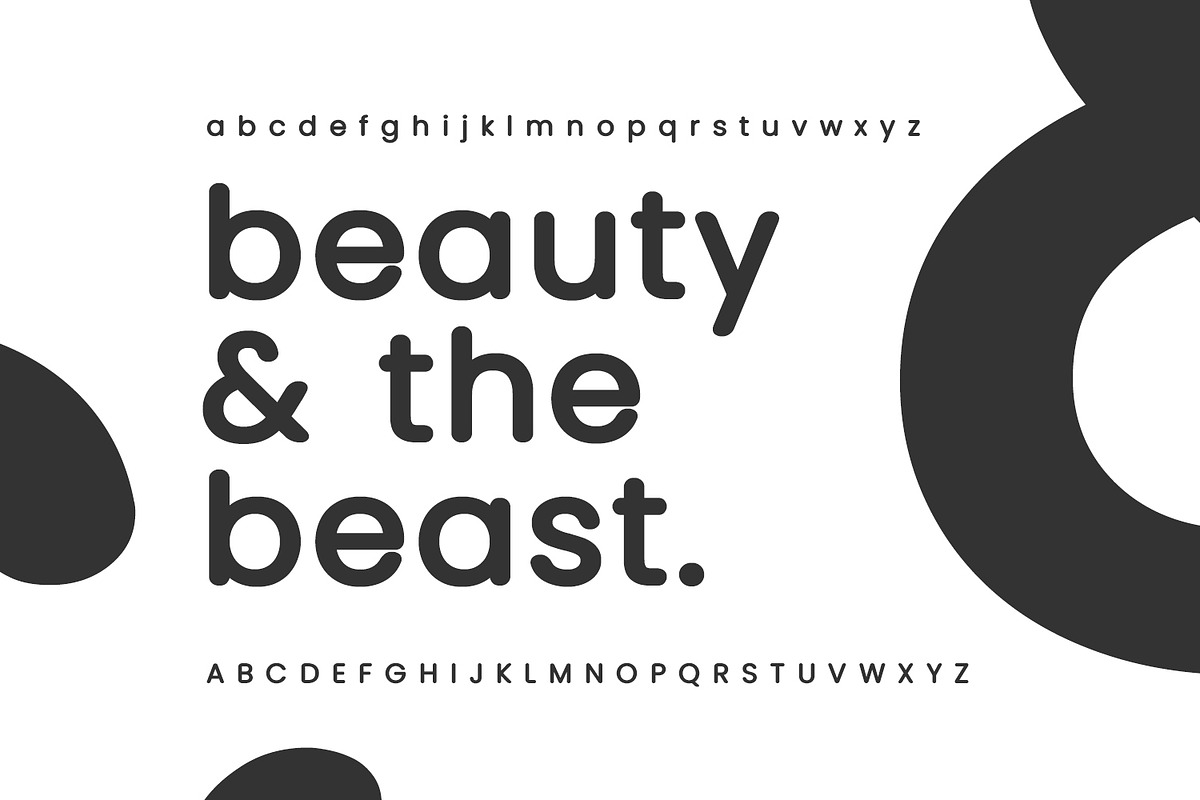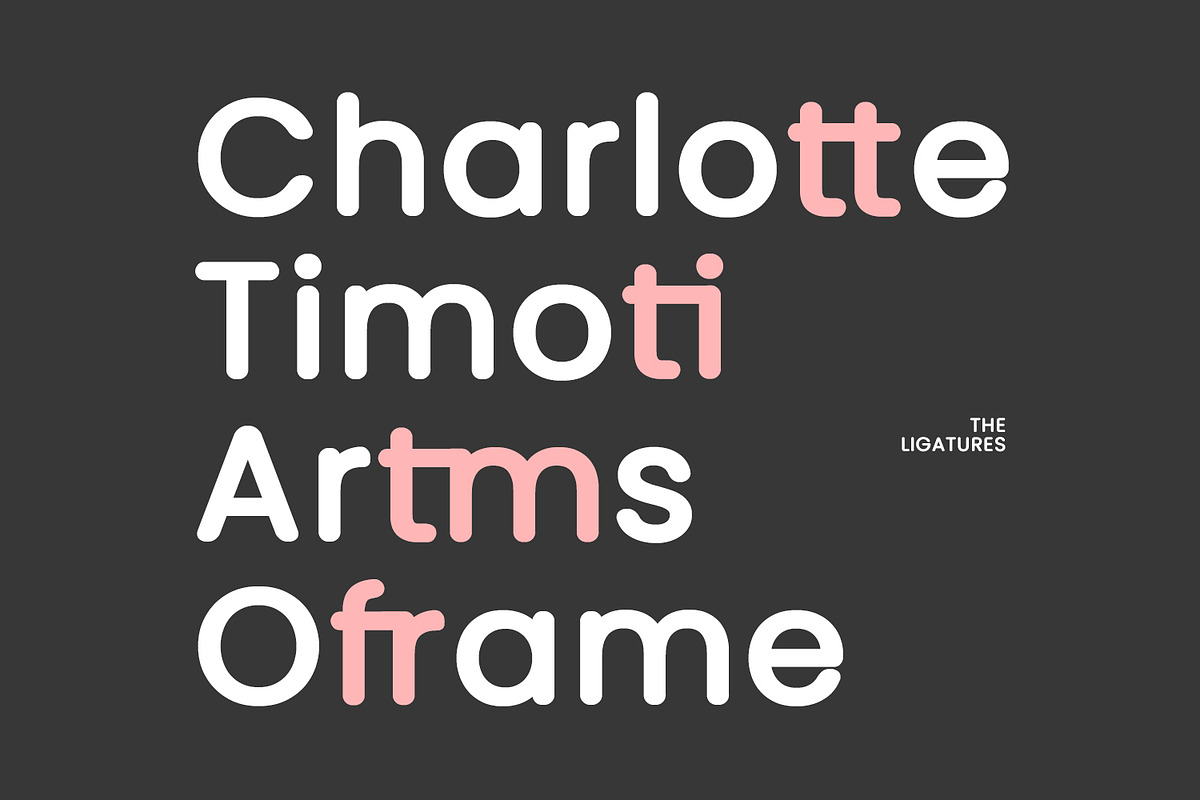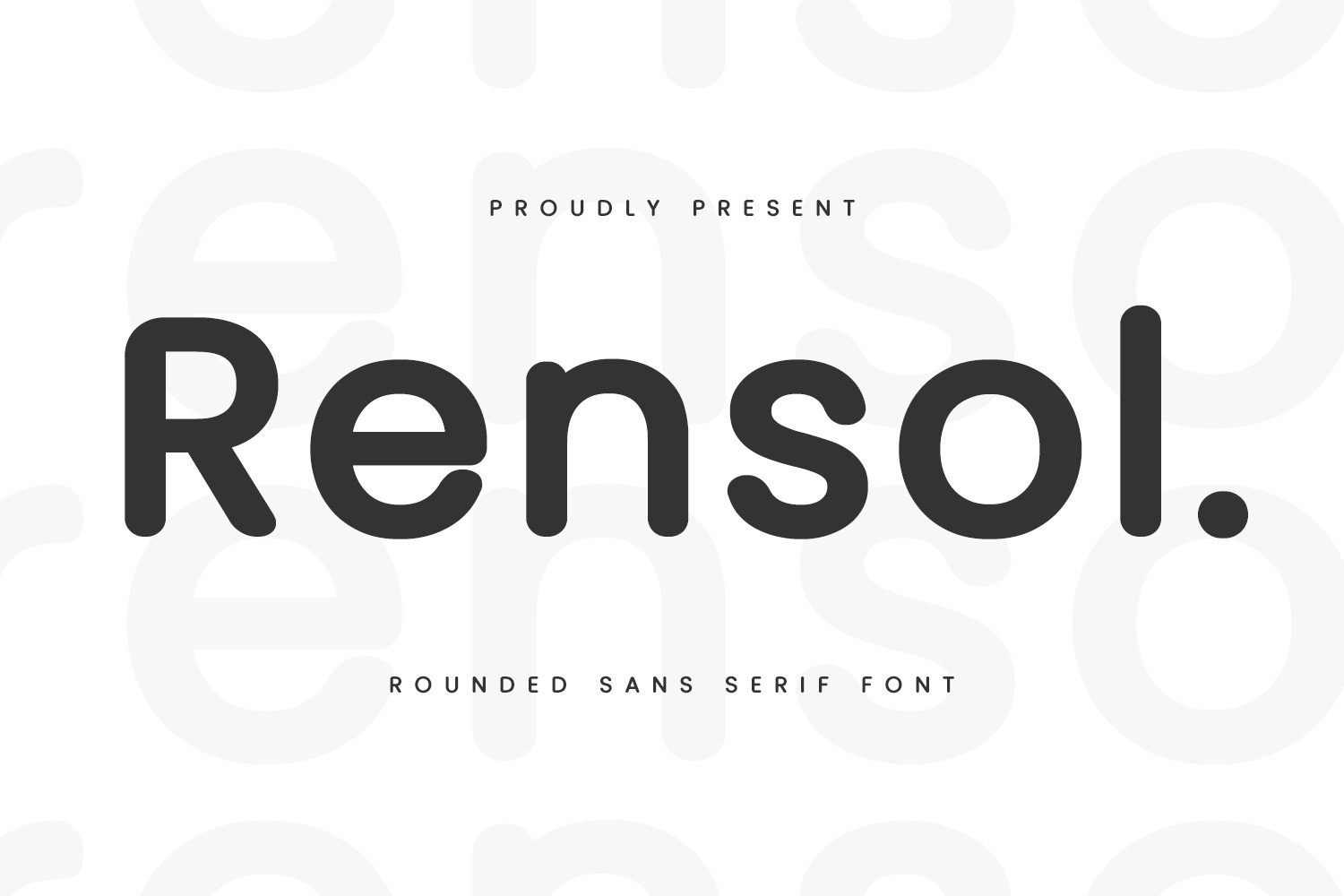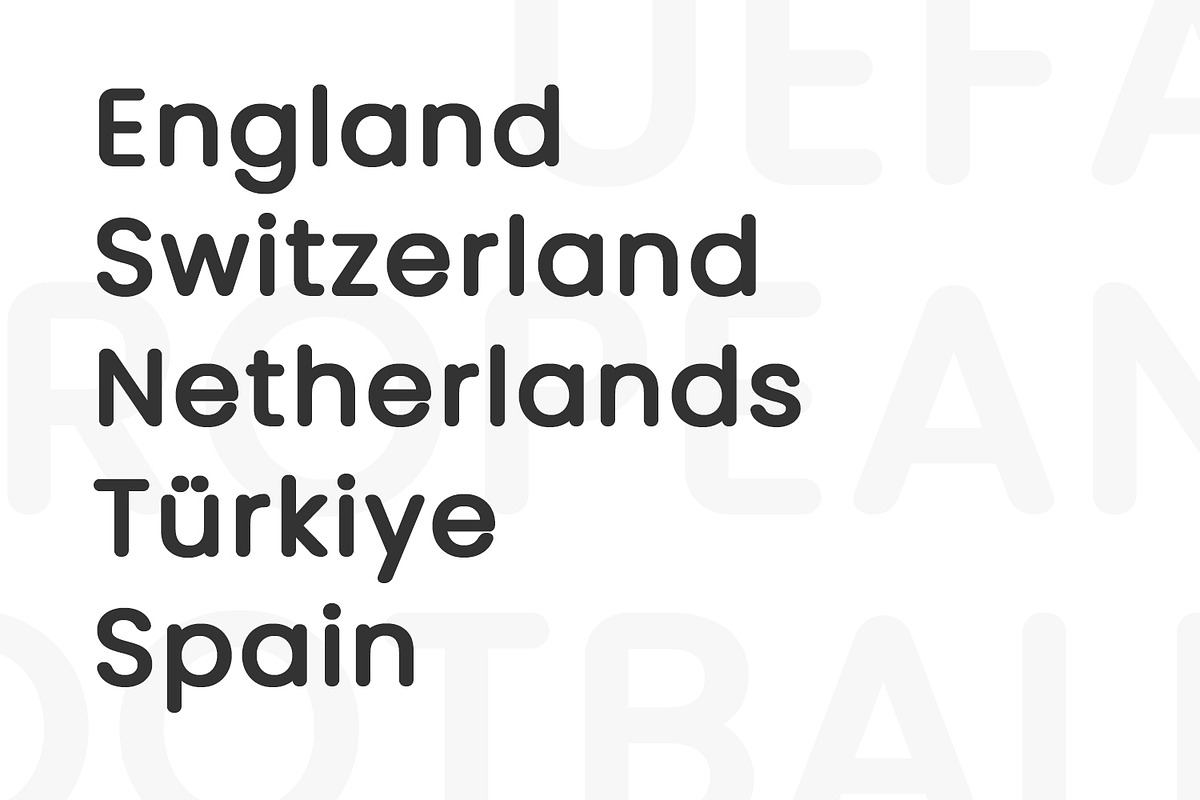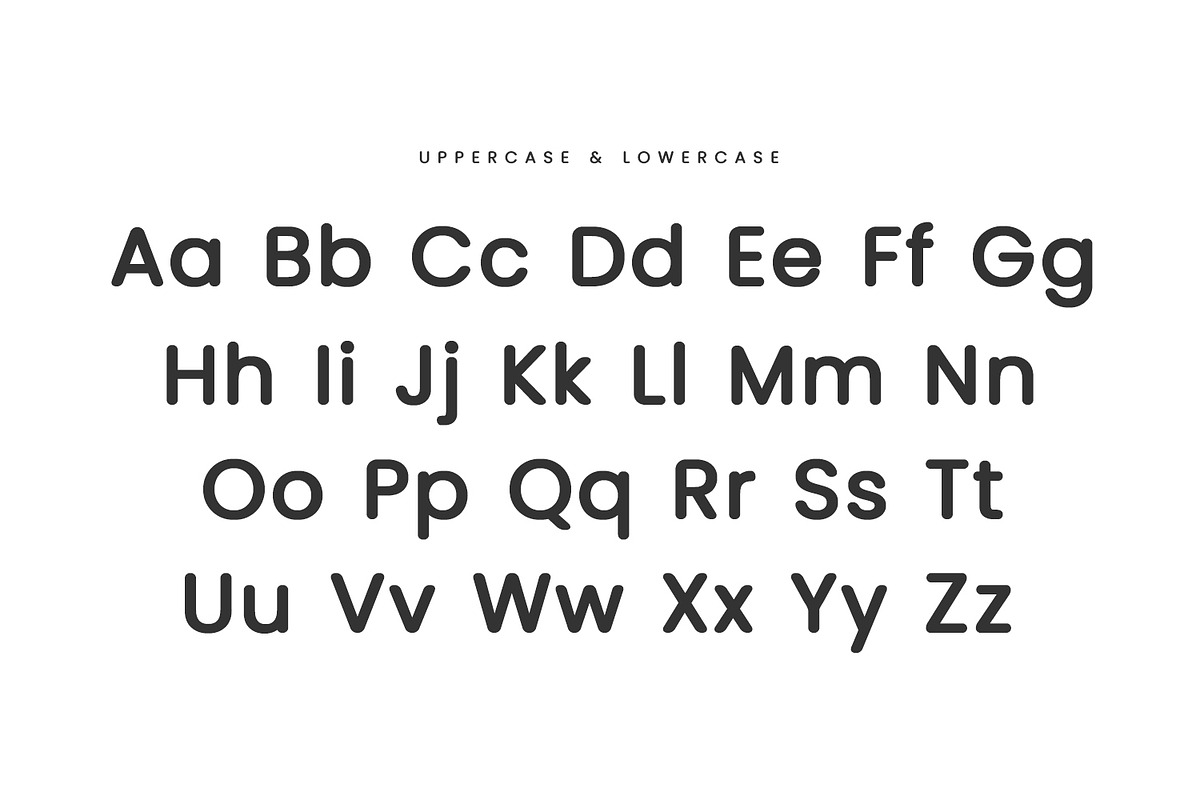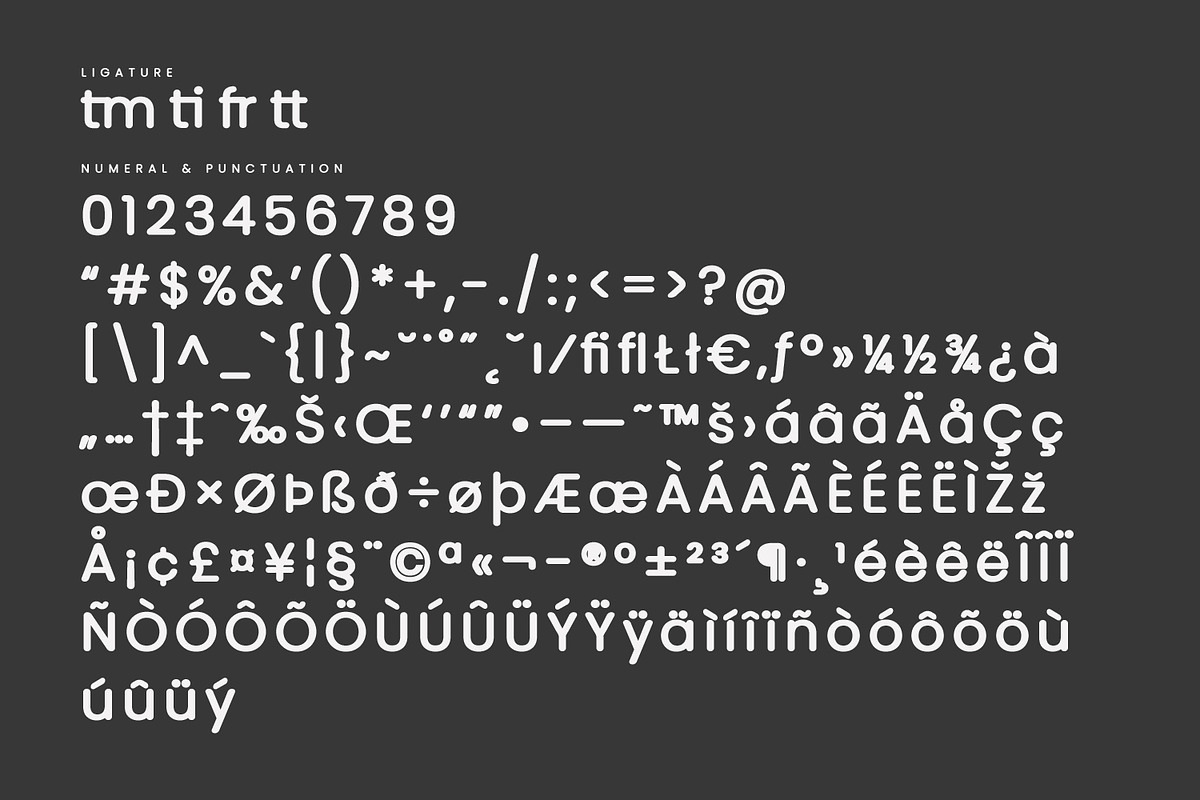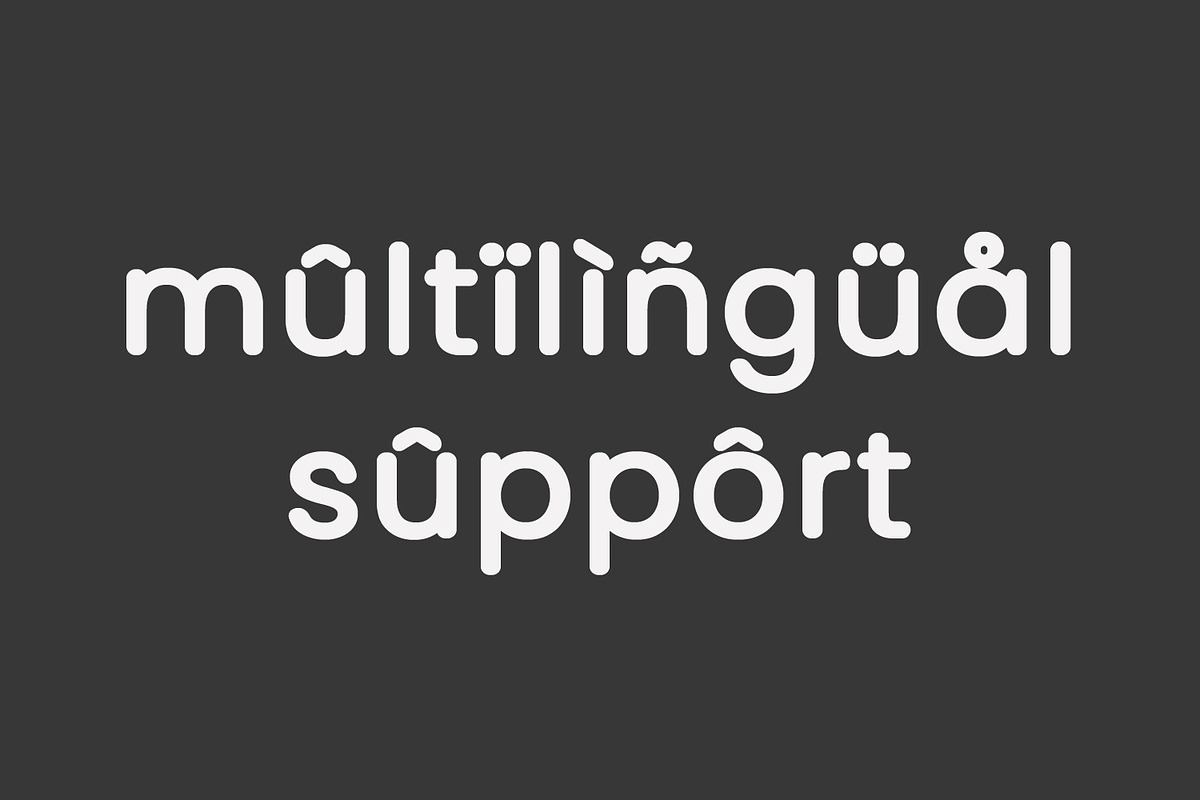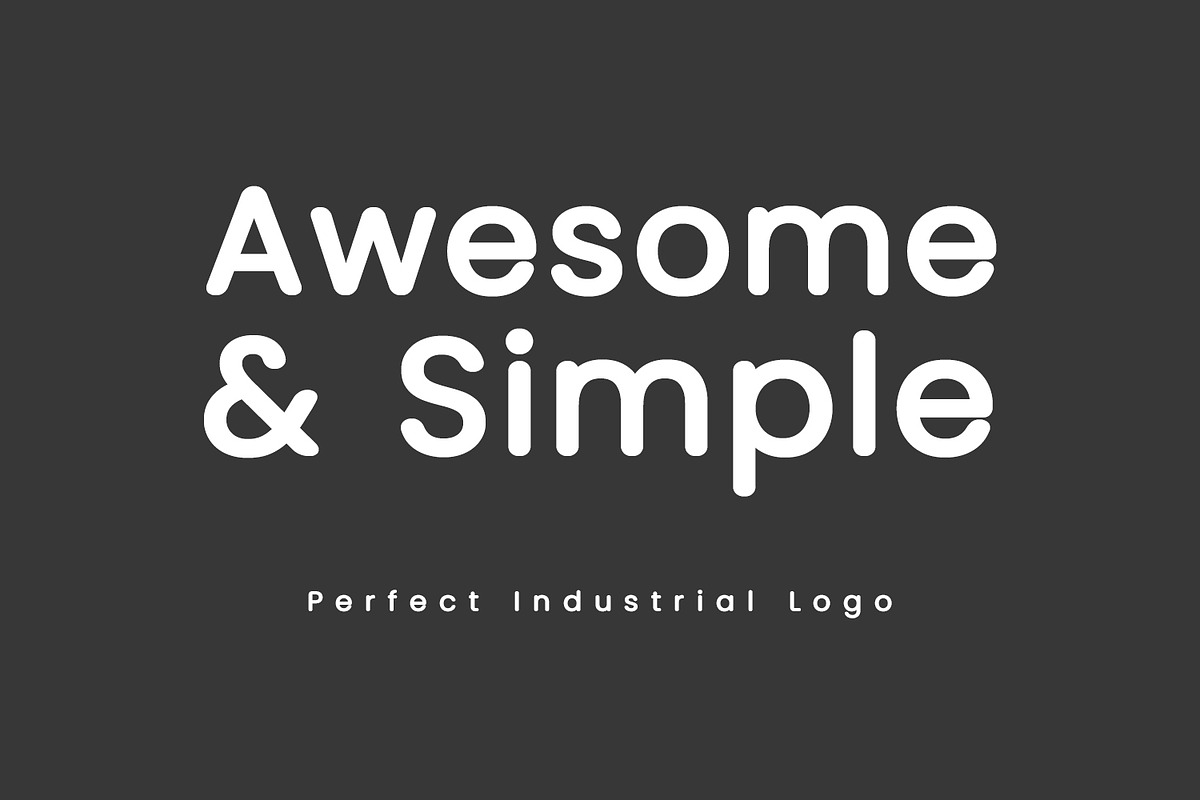
Rensol Rounded Sans Serif Font
Rensol rounded sans serif font. Heavy stroke, fun character with ligatures. To give you an extra creative work. Rensol rounded sans serif font support multilingual language. This font is good for logo design, Social media, Movie Titles, Books Titles, a short text even a long text letter and good for your secondary text font with script or serif. Make a stunning work with Rensol rounded sans serif font.